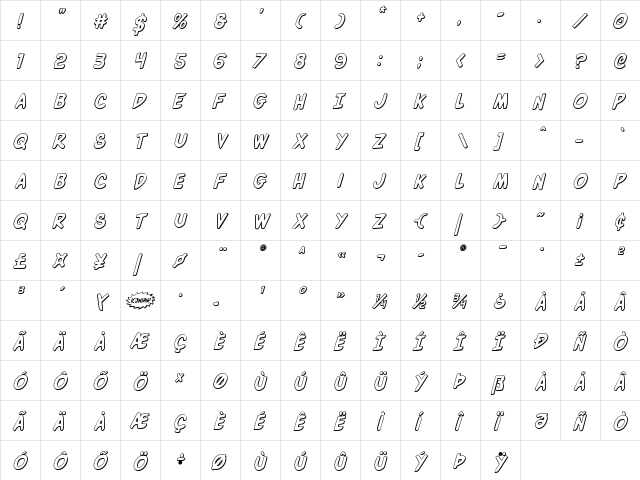
Villain Team-Up 3D Italic Regular
Design Context for Villain Team-Up 3D Italic Typeface
Villain Team-Up 3D Italic is a composed and adaptable typeface that performs quietly and consistently across a wide range of design contexts. The dynamic lean of this cut emphasises speed and emphasis in any layout.
Pro Tip: Use Villain Team-Up 3D Italic for emphasis, pull quotes, and subheadings where its slanted energy can add rhythm to the layout.